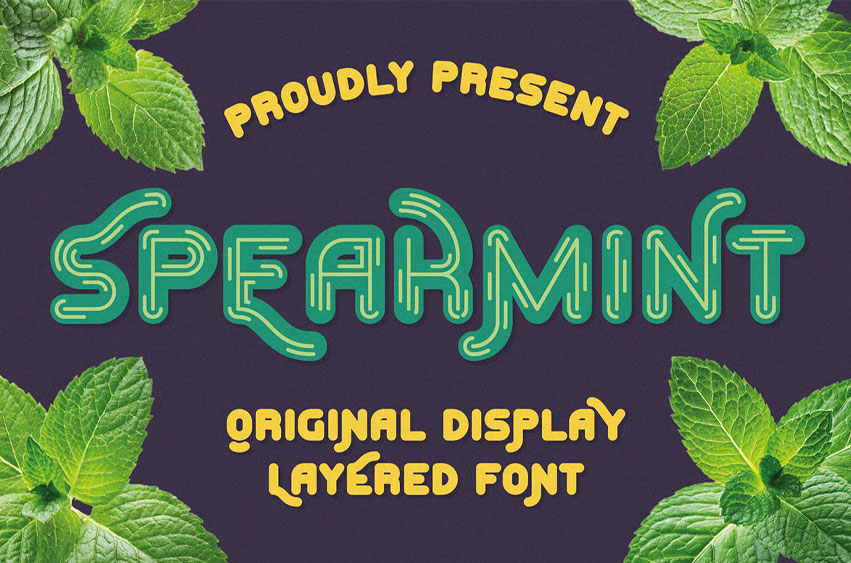
Spearmint Font Unique, classic, bold, linear, geometric, retro, vintage, rounded & groovy display sans serif font. Comes with multilingual support & alternates + 3 font versions – great for your new logo, monogram, or branding project.
• 3 font versions – regular & stripe 1 version & stripe 2 version
• Multilingual support & alternatives
• Great for your new logo, monogram, or branding project